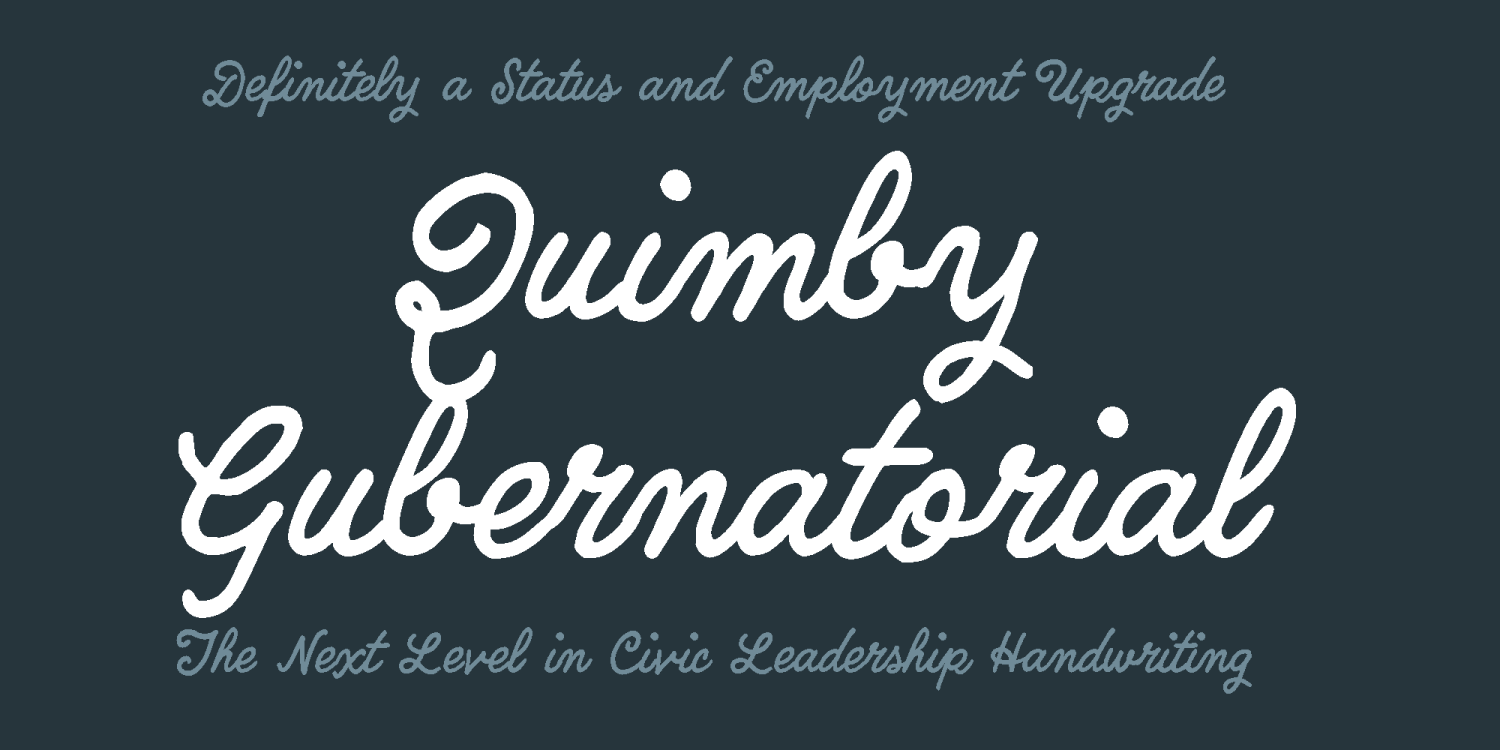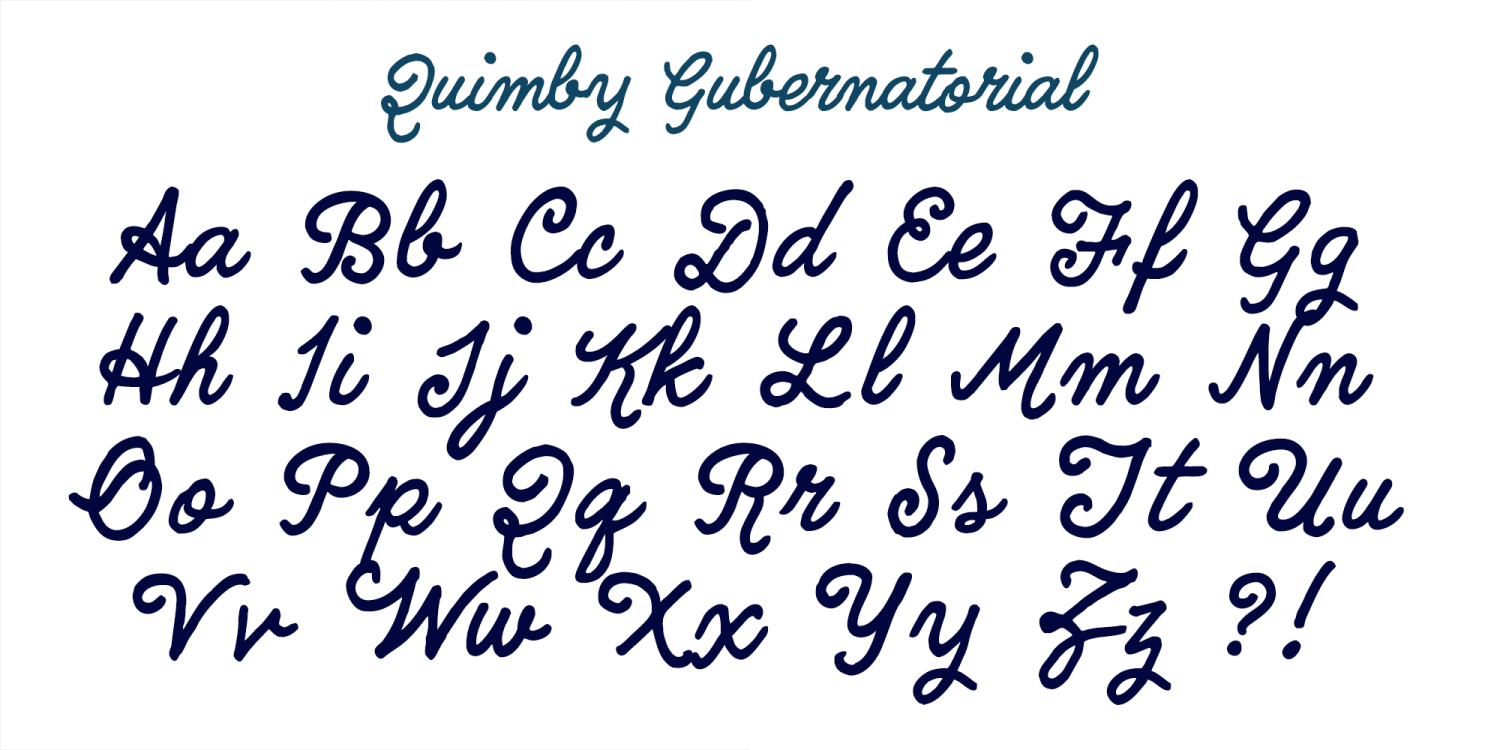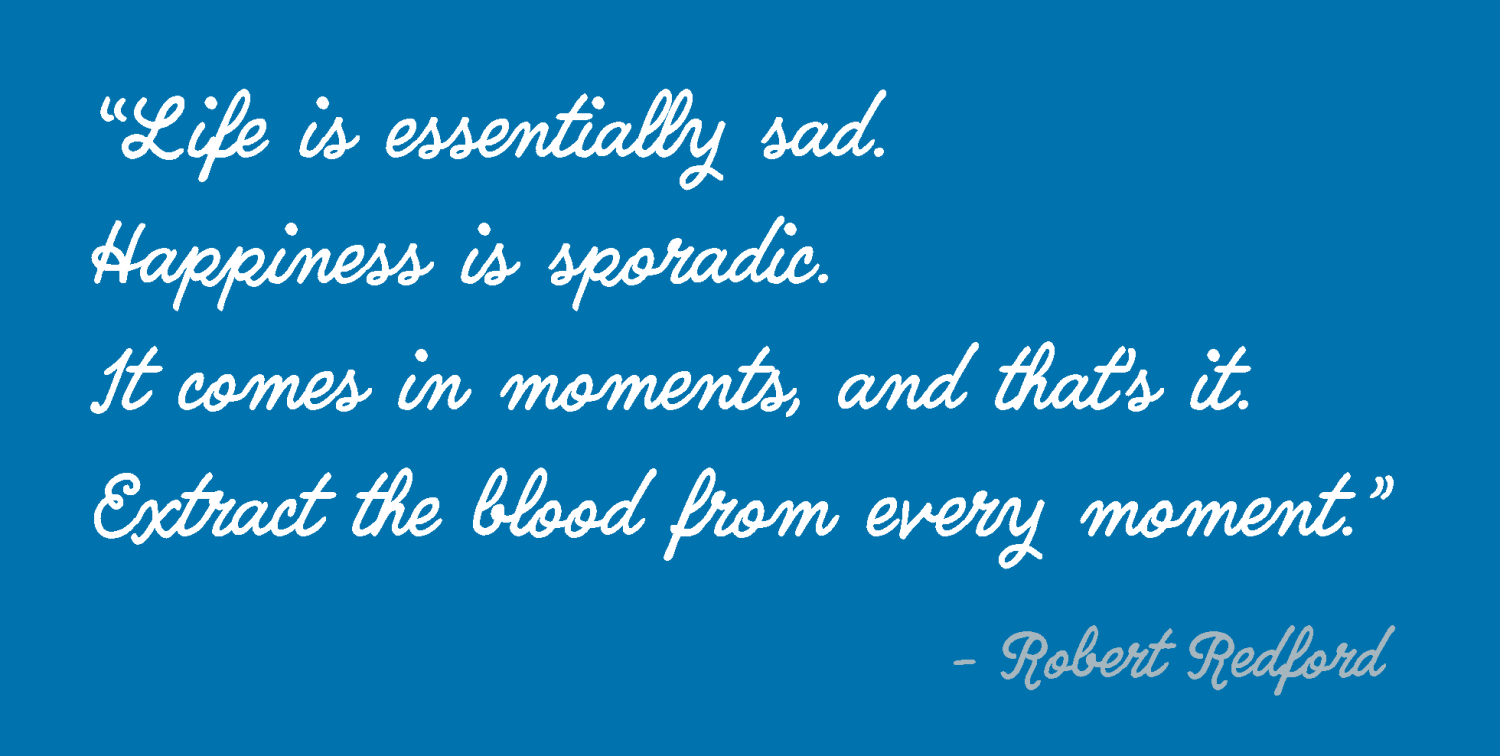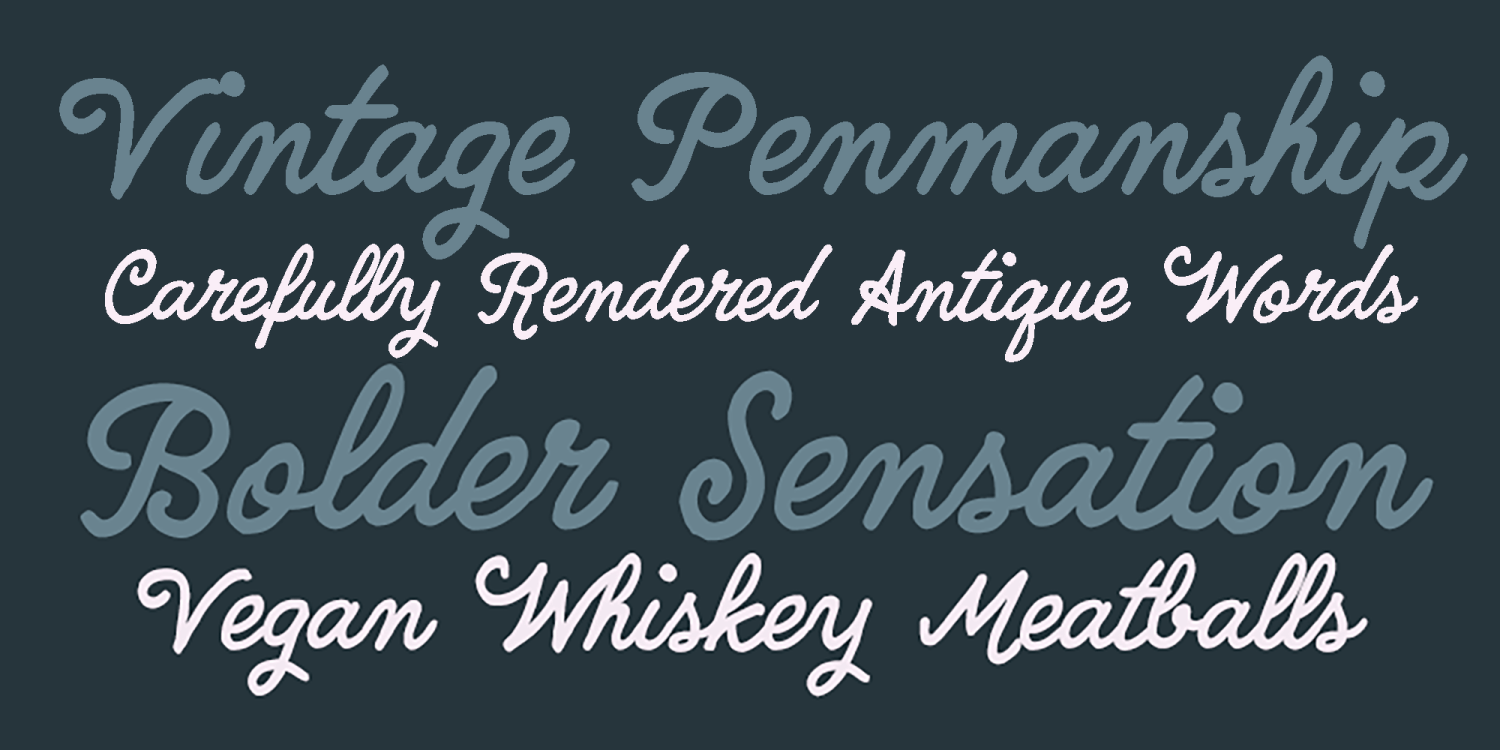
Quimby Gubernatorial
Font Family by Chank Co
Quimby Gubernatorial is the new counterpart to the prior Quimby Mayoral, a frilly, old-school script. This time around it's rendered with a marker for a bolder, cleaner feel. It was created by special request from our friends at Chowgirls Killer Catering, who can't get enough of the original Quimby, but need something with a little extra punch on occasion. Here it is in all its cursive glory. Spread the love on thick with this flowery new face.